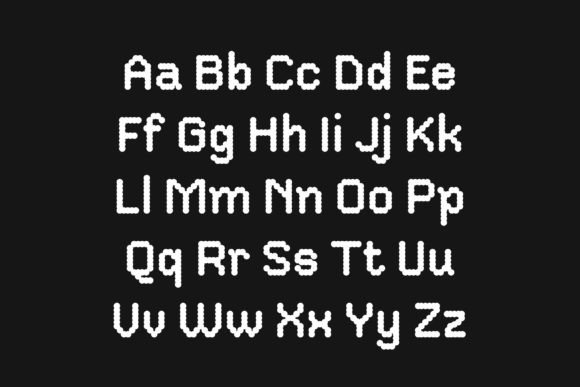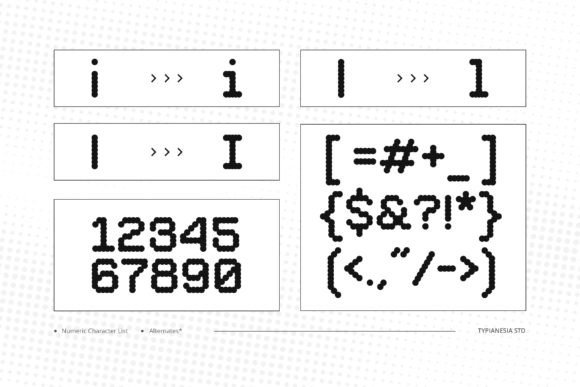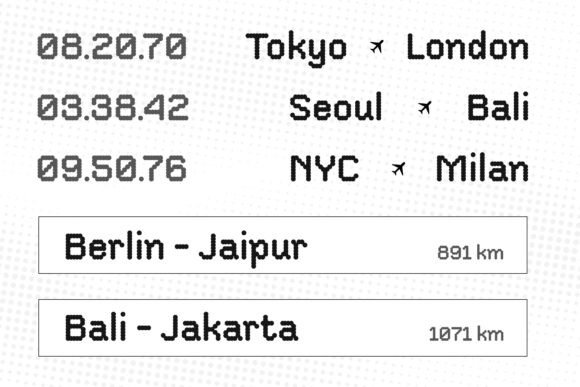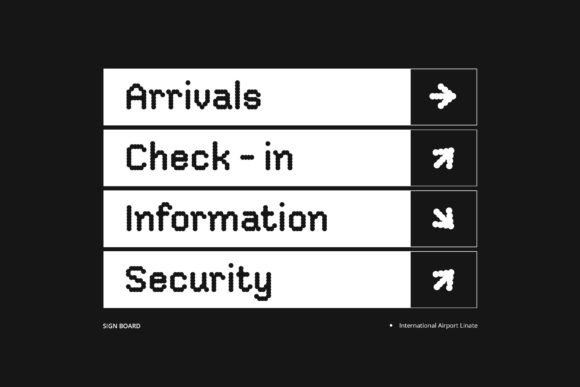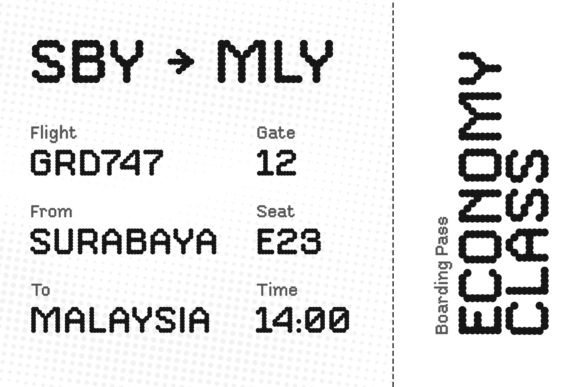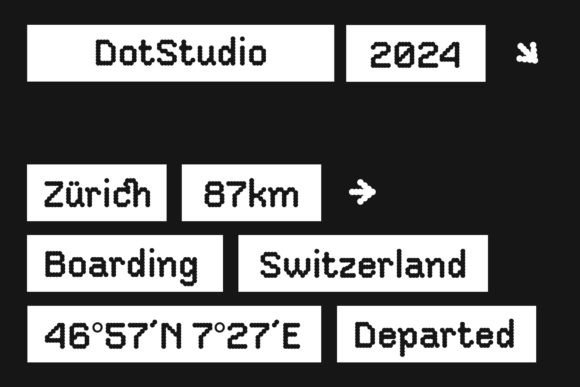
Dotstudio Font: A Modern Marvel
Dotstudio is a meticulously crafted font, designed to make a striking visual impact across various design applications. Its innovative design makes it perfect for modern digital and print applications, such as branding, logo design, headlines, posters, digital displays, and any project requiring a contemporary and futuristic eye-catching font.
The font comes with a range of features that make it a versatile and flexible choice, including:
- Ligatures features to enhance your creative project ✨
- Inclusion of alternate characters for customization ✅
- Multilingual support for flexibility and adaptability 🌎
- The font’s modern and sleek design, perfect for digital and print applications 💻
- The range of ligatures and alternate characters, which offer endless possibilities for customization 🎨
- The font’s multilingual support, making it a great choice for global brands 🌍
- The font’s ability to grab attention and make a lasting impression 🔥
- Some users may find the font’s futuristic design too bold or overpowering for certain projects ⚠️
- The font’s uniqueness may not be suitable for projects requiring a more traditional or classic look 🤔
The Designer Inspiration Behind Dotstudio Font
Dotstudio Font was designed with the goal of creating a modern and eye-catching font that would make a lasting impression. The designer, inspired by the world of technology and innovation, aimed to create a font that would reflect the futuristic and forward-thinking spirit of modern design.
| Font Name | Dotstudio Font |
| Author | Typia Nesia |
Q: What is Dotstudio Font?
A: Dotstudio Font is a modern and eye-catching Dot Font Display typeface, designed for striking visual impact across various design applications.
Q: What features does Dotstudio Font offer?
A: Dotstudio Font offers ligatures features, inclusion of alternate characters, and multilingual support, making it a versatile and flexible choice for designers.